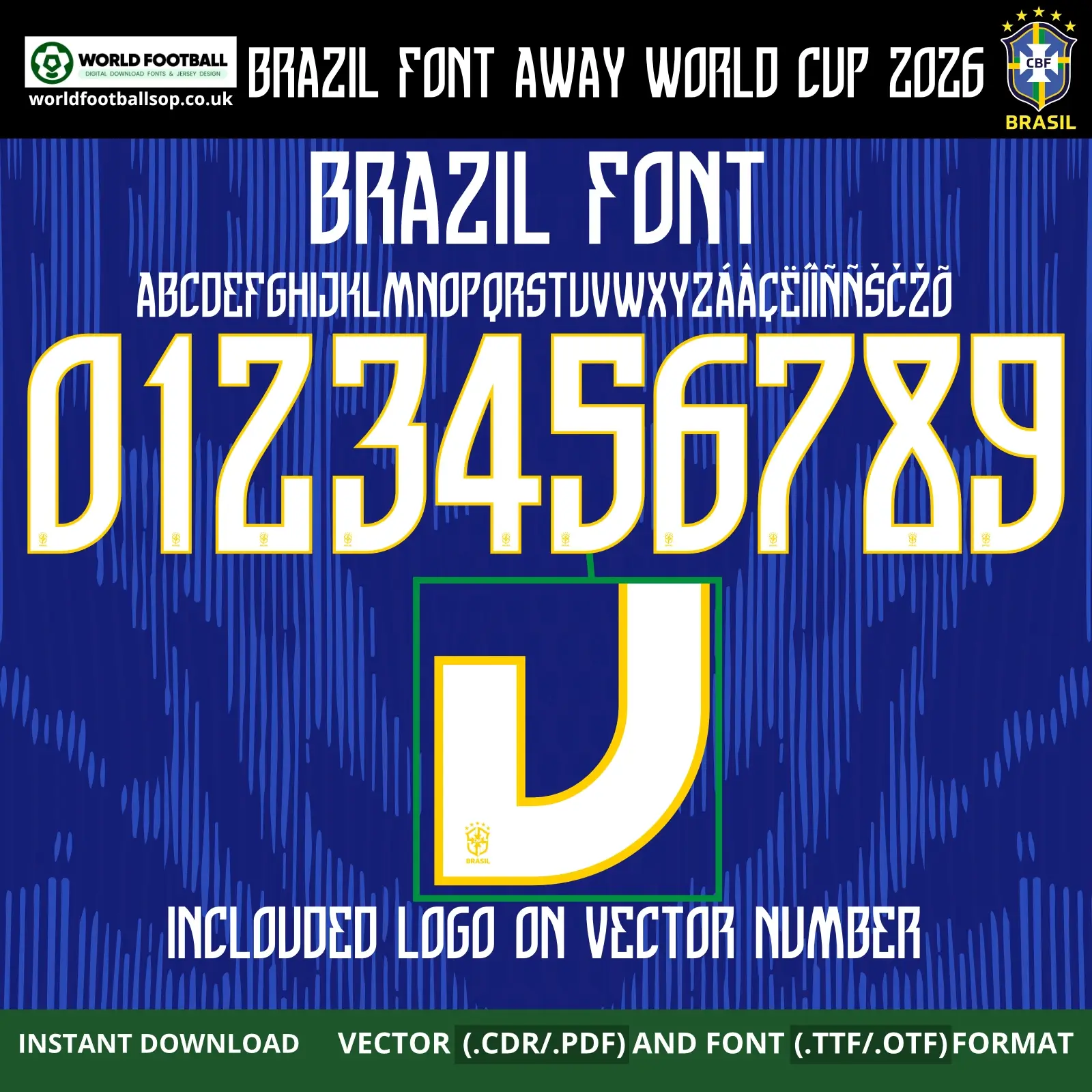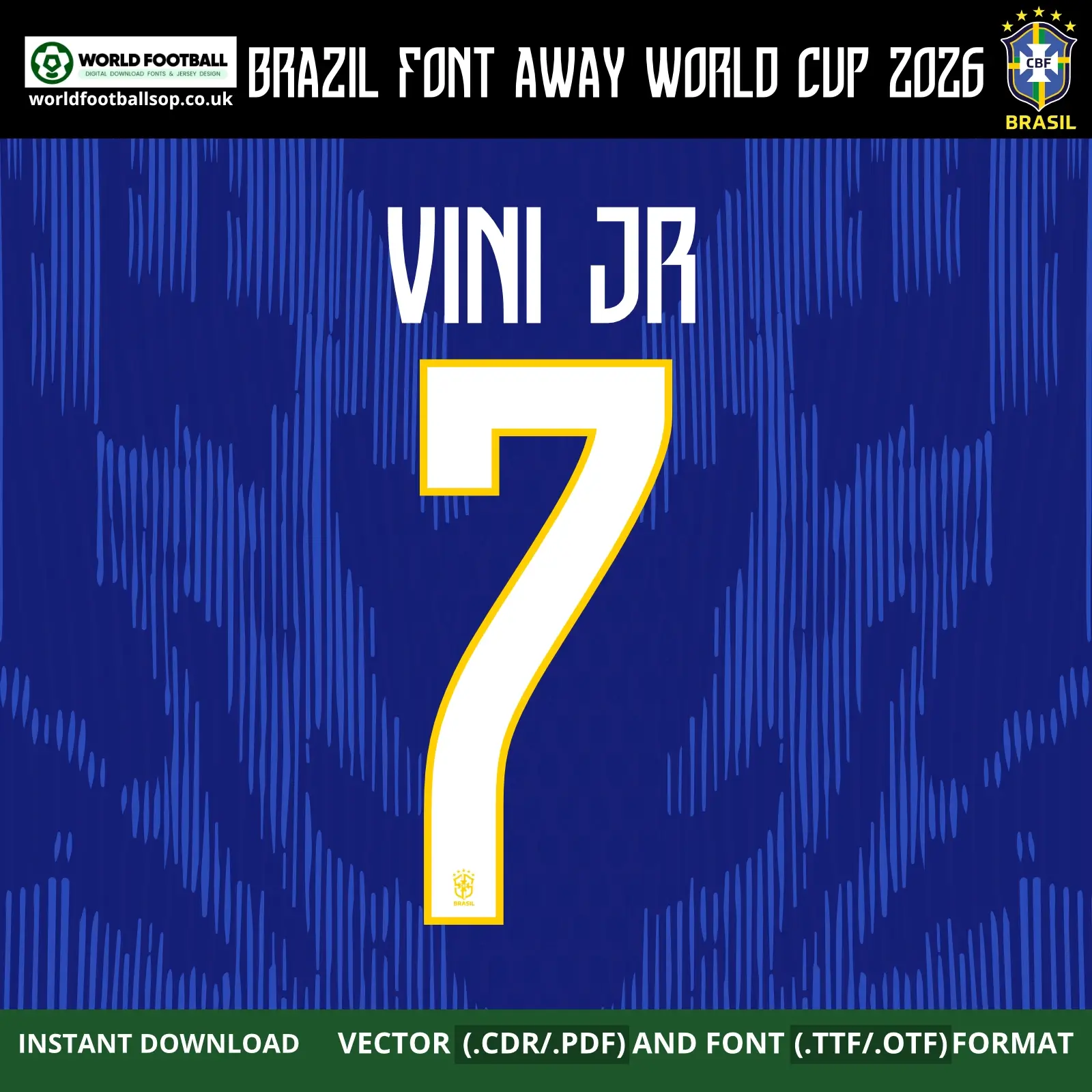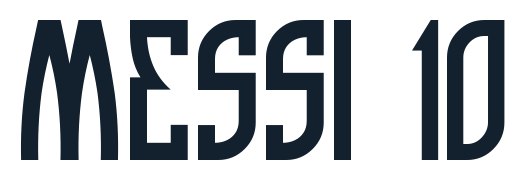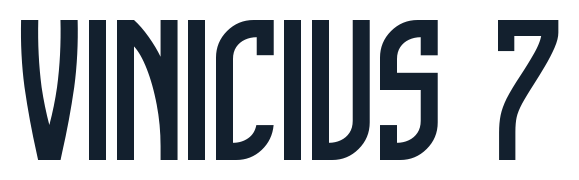
Download Brazil Font Away World Cup 2026 recreates the sharp, angular white numbers and letters with yellow outline used on Brazil’s Jordan 2026 blue away kit. Download TTF, OTF and vector files (CDR, PDF) with full A–Z alphabet, accents and 0–9 numbers including CBF crests on vector digits. Instant digital download.
Brazil Font Away World Cup 2026 - Jordan Blue, Sharp Yellow Outline
The Brazil Font Away World Cup 2026 pack mirrors the modern typeface launched with Brazil’s Jordan 2026 away jersey. The numbers feature tall, condensed shapes with aggressive angular cuts and straight edges, a big change from Brazil’s softer 2024 lettering. In your covers, the digits are white with a bright yellow keyline, standing out against the dark royal-blue background patterned with jagged tonal stripes, exactly as seen on the new away shirt.​
This font is perfect for kit printers, collectors and designers who want authentic Brazil 2026 World Cup away namesets. The vector numbers include a small CBF crest at the base for match-style prints, while the TTF/OTF fonts are simplified for general design work. You can quickly set “VINI JR 7” or any player name and number for posters, thumbnails, or fan jerseys.
• Full uppercase A-Z alphabet plus extended characters (Á Â Ã Ç É Í Ñ Ş Ž, etc.) for Lusophone and international player names.​
• Numbers 0-9 in Brazil 2026 away style, ready for back, front or shorts printing.​​
These files are ideal for custom Brazil away fan kits, futsal or Sunday league teams using Seleção-inspired designs, and digital graphics for World Cup 2026 content.
Tipografia Brasil World Cup 2026 traz a Fonte Brasil World Cup 2026 oficial da Seleção Brasileira away kit. Números brancos com contorno amarelo para a camisa azul Jordan 2026, com logos CBF nos vetores TTF/OTF/CDR/PDF. Download instantâneo para camisas Vini Jr 7!
Design highlights
• Sharp and futuristic: The 2026 Brazil away font uses rigid geometric cuts and straight lines, replacing the rounded 2024 style with a more aggressive look.
• Jordan collaboration: Designed to complement the Jordan-branded Brazil 2026 away shirt in dark blue with jagged tonal stripes and yellow detailing.
• High visibility: White fill plus bold yellow outline ensures numbers remain readable on TV and from the stands.